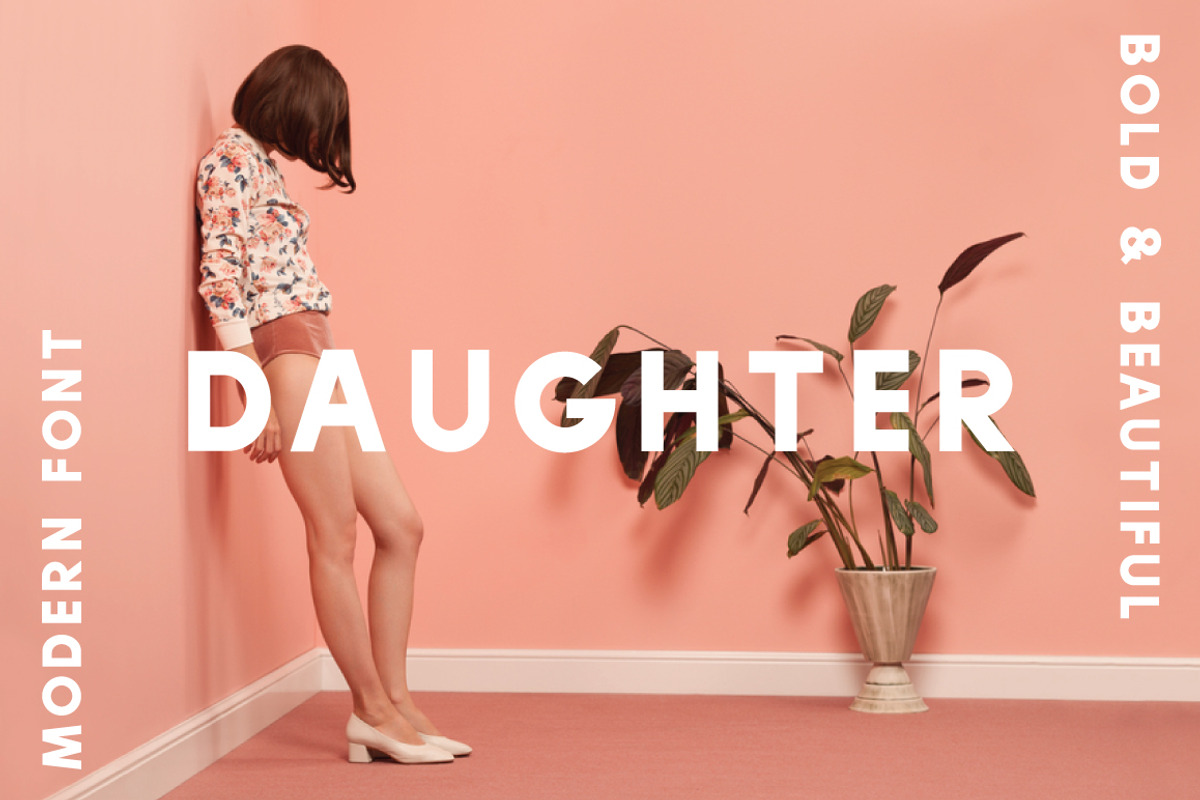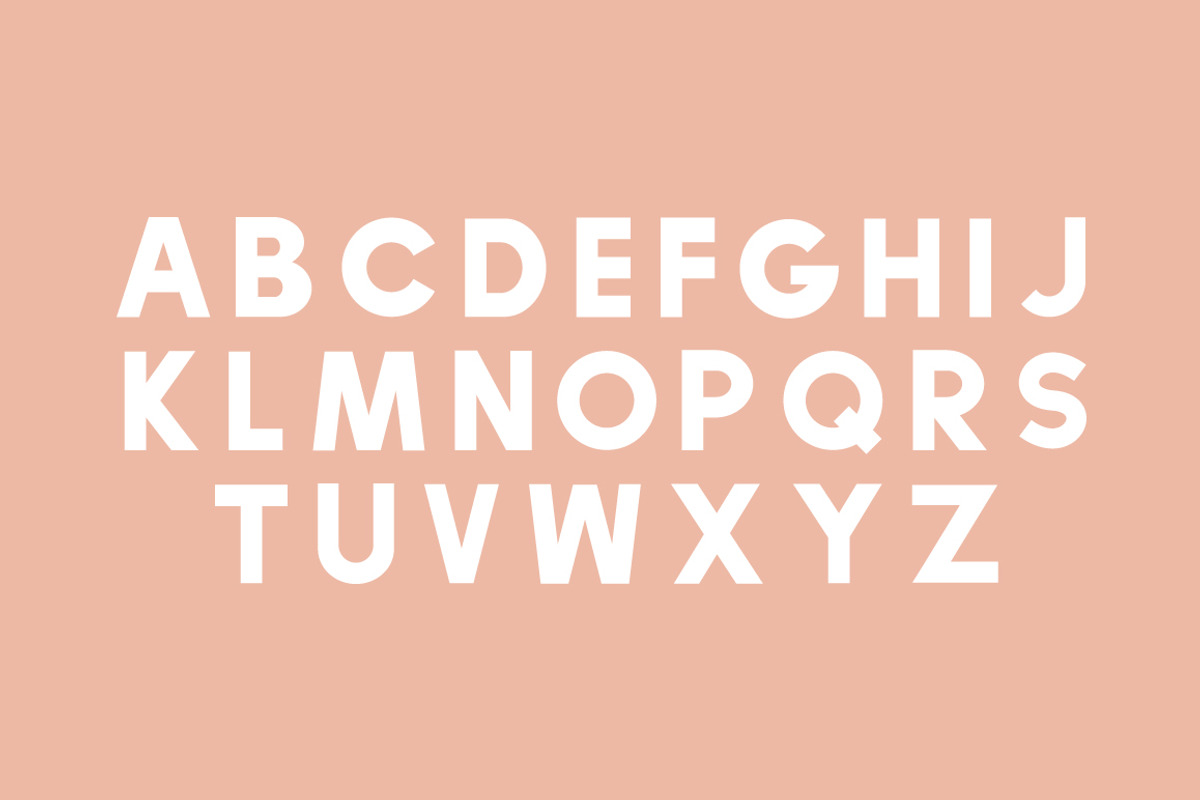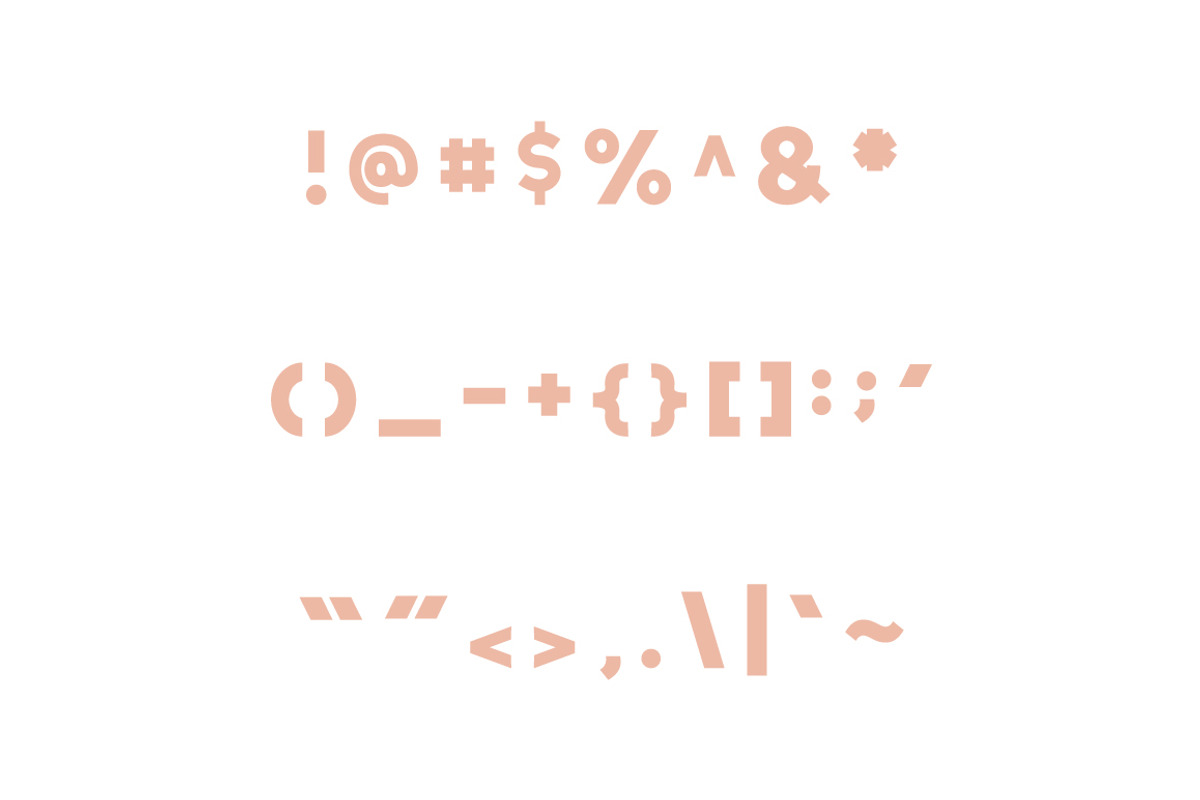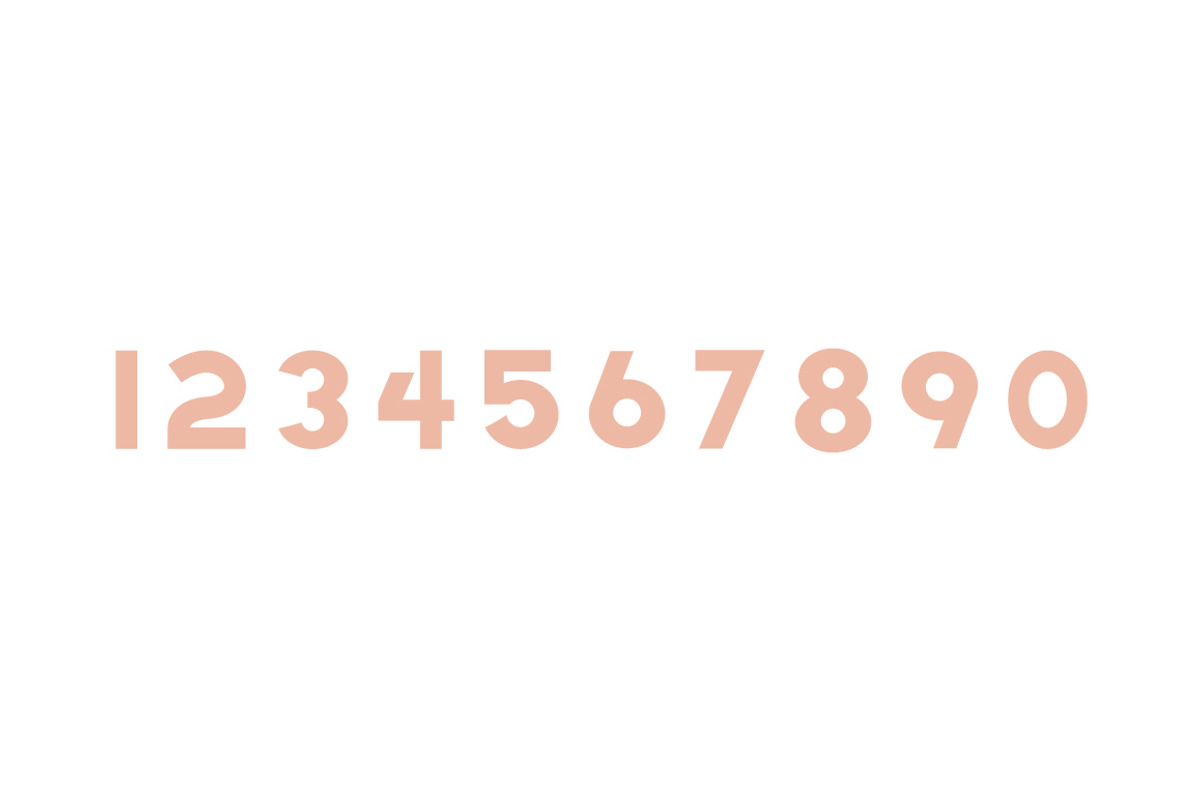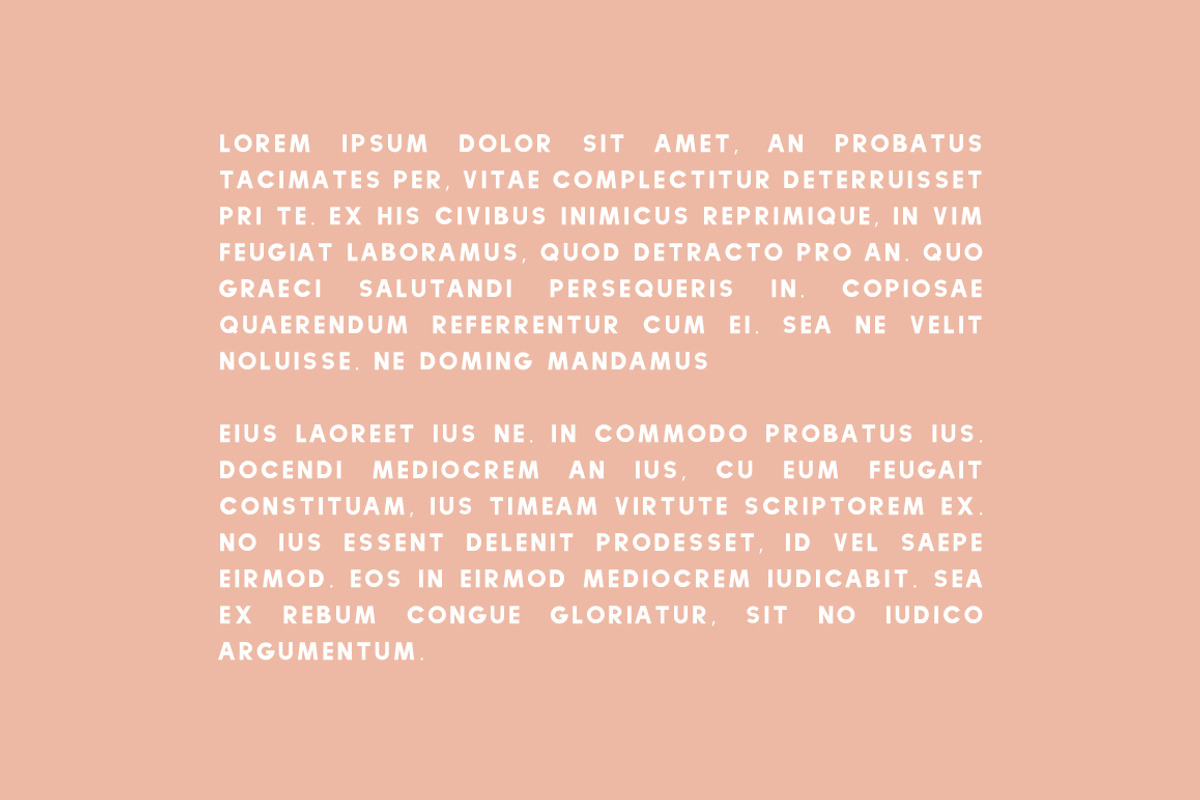
Daughter Font
Daughter Font by Creative Type is a font selected for branding, posters, packaging, typography.
Why Daughter Font is worth a look
Daughter Font by Creative Type fits naturally into Branding, posters, packaging, typography.